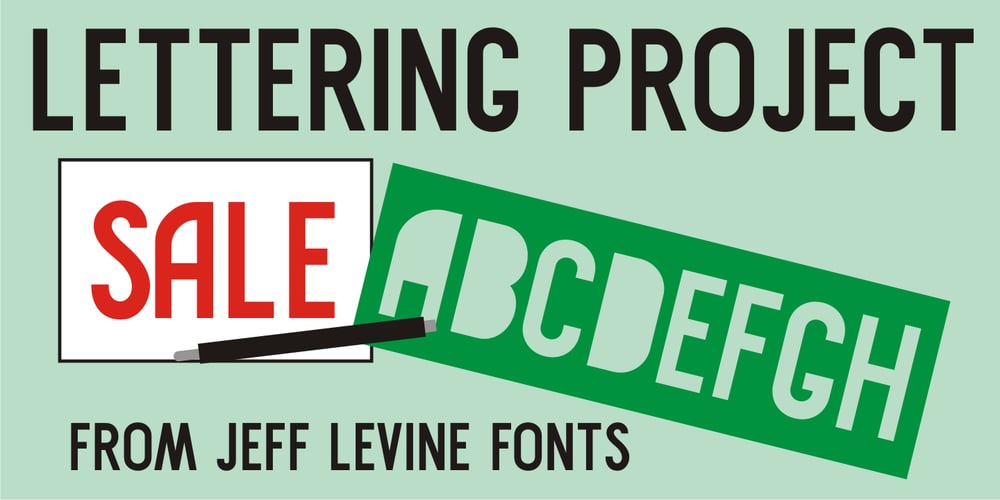
Lettering Project JNL Font Family was designed by Jeff Levine and published by Jeff Levine. Lettering Project JNL contains 1 styles and family package options. Lettering Project JNL was based on one of the many templates made by the Wood-Regan Instrument Company (also known as Wrico). Their sign making kits allowed anyone using the templates, special ink pens and alignment guides to create professional looking lettering with a minimum of experience.